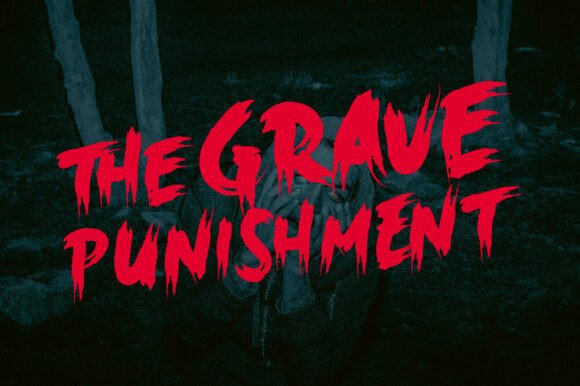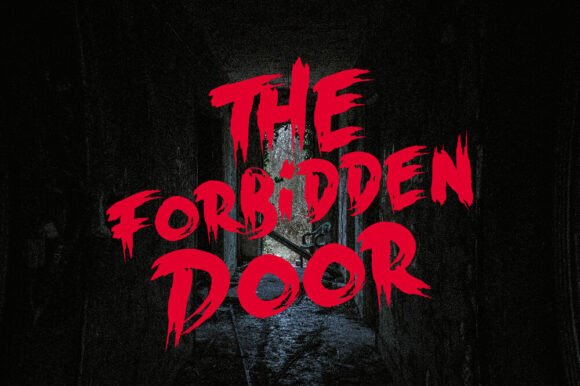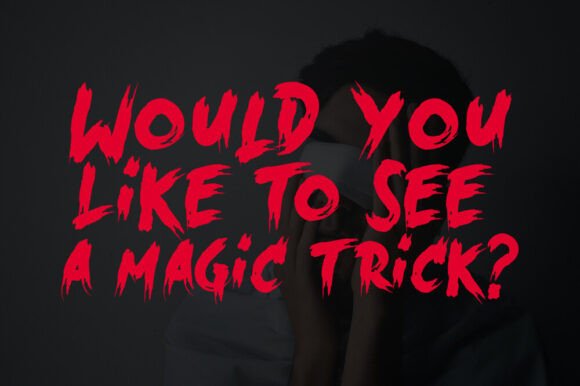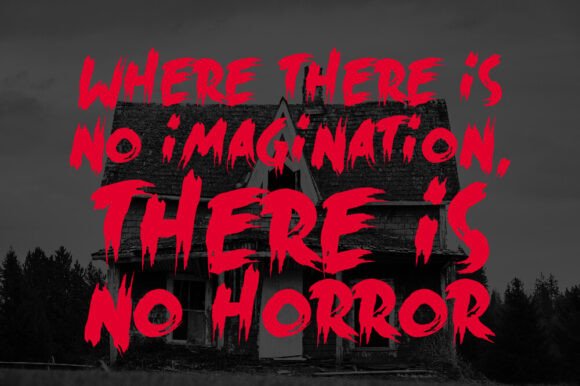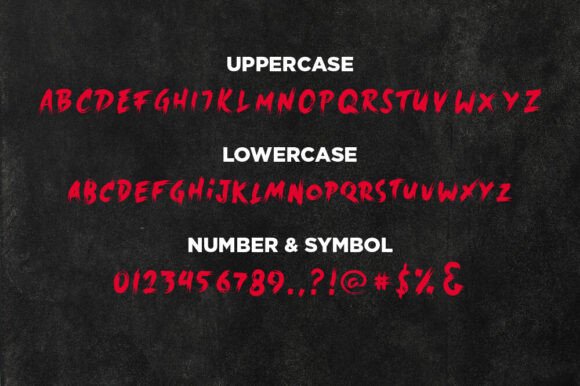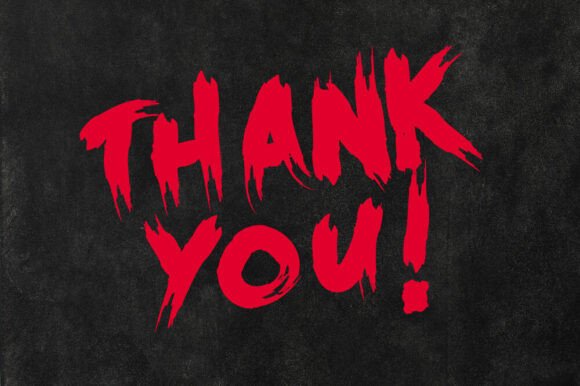
Introduction to Sarean Font
As a designer, there’s nothing quite like the rush of creating something from scratch. For me, it started with a late-night brainstorming session, trying to come up with the perfect title for a horror short film. I was experimenting with different fonts, but nothing seemed to capture the eerie atmosphere I was going for. That’s when I stumbled upon the Sarean Font, a hand-painted masterpiece that would change the game for my project.
With its unique, hand-painted style and transparent background, the Sarean Font is the perfect design resource for any creative project that needs an extra dose of horror flair. Whether you’re designing a movie title, logo, or quote, this high-quality font is sure to make your work stand out. And the best part? It’s available for free download, making it an invaluable asset for designers on a budget.
As a design enthusiast, I can attest to the value of having a versatile font like the Sarean Font in your toolkit. Its ability to add an instant touch of creepiness to any project makes it a must-have for anyone looking to create a truly unforgettable design.
Key Features of Sarean Font
- Unique, high-quality font design ideal for creative projects, including graphics, logos, and branding materials.
- Transparent background option allows for seamless integration with various design elements and backgrounds.
- Designed to be highly legible at various resolutions, including 72 dpi, 96 dpi, and 300 dpi, ensuring it looks great on a range of devices and screens.
- Includes a comprehensive character set, supporting a wide range of languages and characters, making it a versatile design resource.
Honest Review: Sarean Font
I recently had the chance to try out the Sarean Font, and I’m excited to share my thoughts with you. This font is a great addition to any designer’s toolkit, and I was impressed by its high quality and versatility.
- ✨ The transparent background option allows for seamless integration with any design element, giving you complete control over your design.
- ✨ The font is incredibly easy to use, with a clean and intuitive interface that makes it perfect for designers of all levels.
- ⚠️ The font’s style may not be for everyone, so it’s essential to review the samples before deciding to use it.
Overall, I was thoroughly impressed with the Sarean Font. It’s a fantastic design resource that can add a unique touch to any creative project. With its high quality, free download, and transparent background option, it’s an excellent choice for designers looking to elevate their work.
To get the most out of the Sarean Font, be sure to experiment with different font sizes and colors. You can also use the font in combination with other design elements, such as images and graphics, to create a unique and eye-catching design.
Common Use Cases for the Sarean Font
The Sarean Font is a versatile font that can be used in a variety of creative projects, including blog posts, social media graphics, and presentations. Its transparent background and high-quality design make it an ideal choice for designers looking to create visually appealing and professional-looking designs.